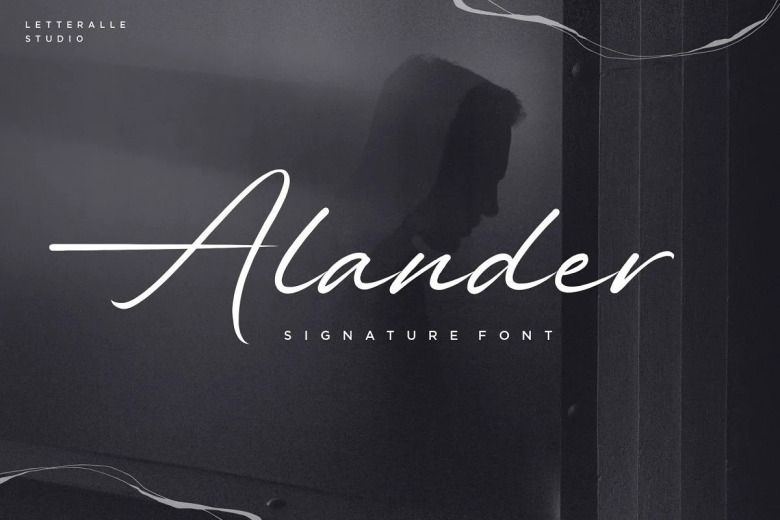
Alander Font
Meet the multi-talented Alander signature script font! Letteralle Studio’s Alander is a fantastic signature font. Typeface already has some elegance and masculinity to it. With a touch of sophistication, not too much but just sufficient: should you decide to collect another selection from the handwritten script collection. Ideal for a variety of designs, Alander will fit in on t-shirts, book covers and merchandise as well as social media posts, websites and events.
Alander Signature Script Font